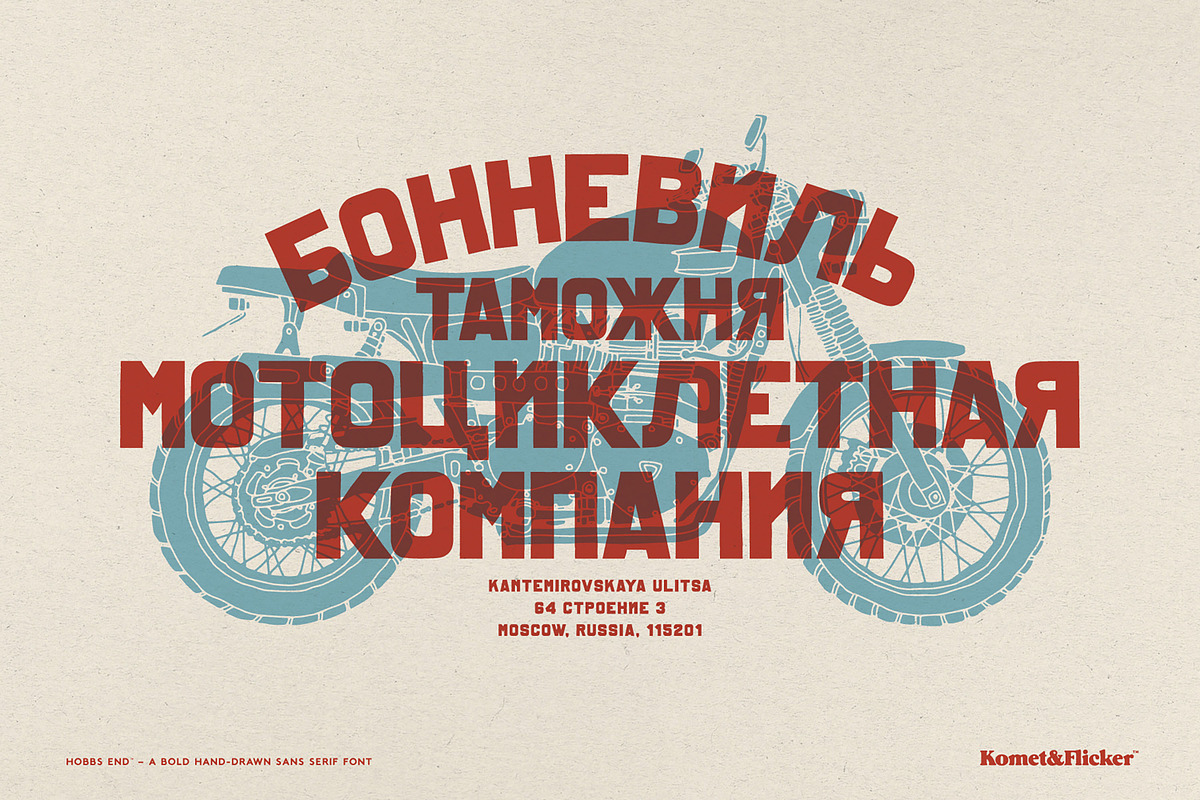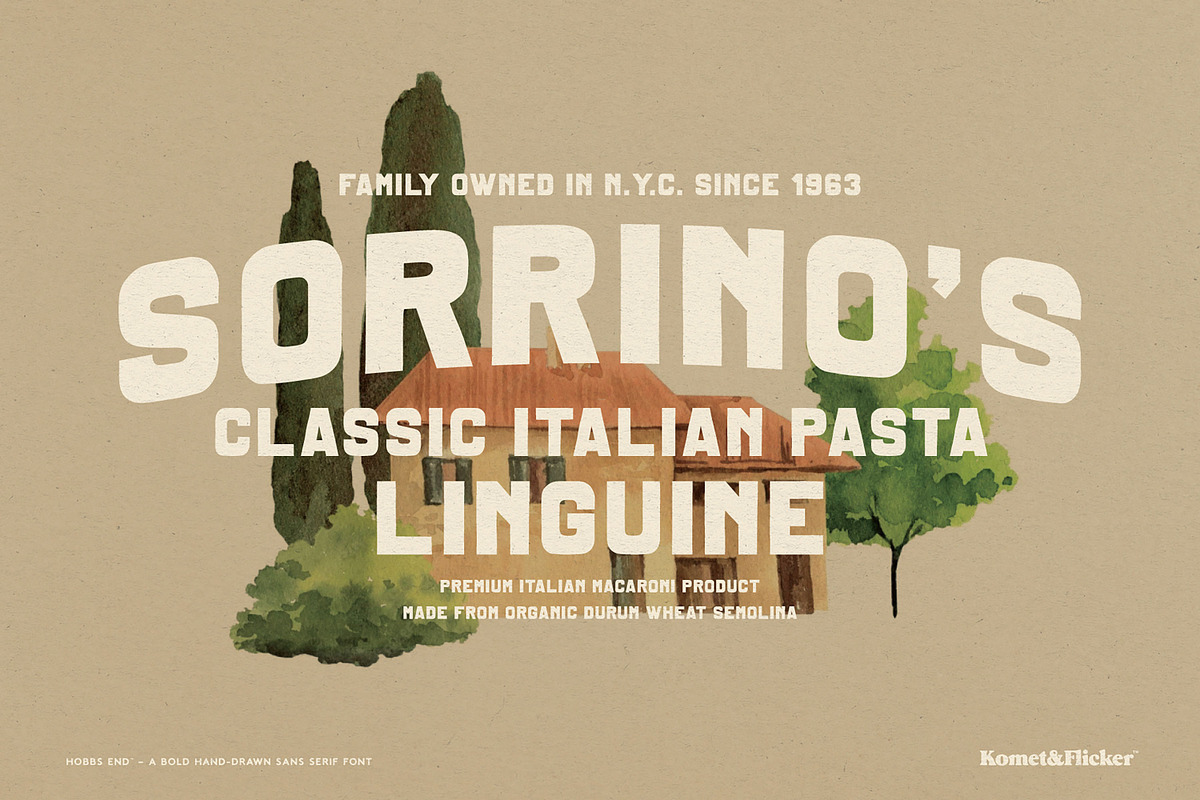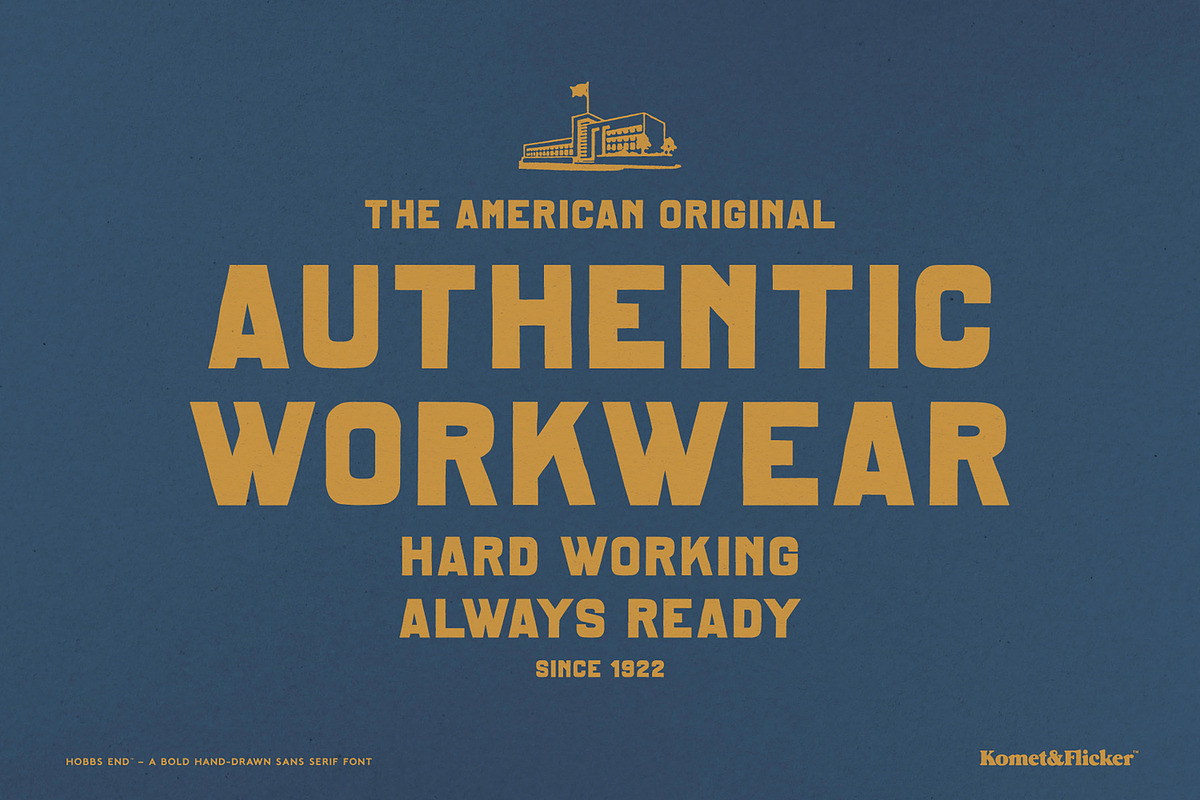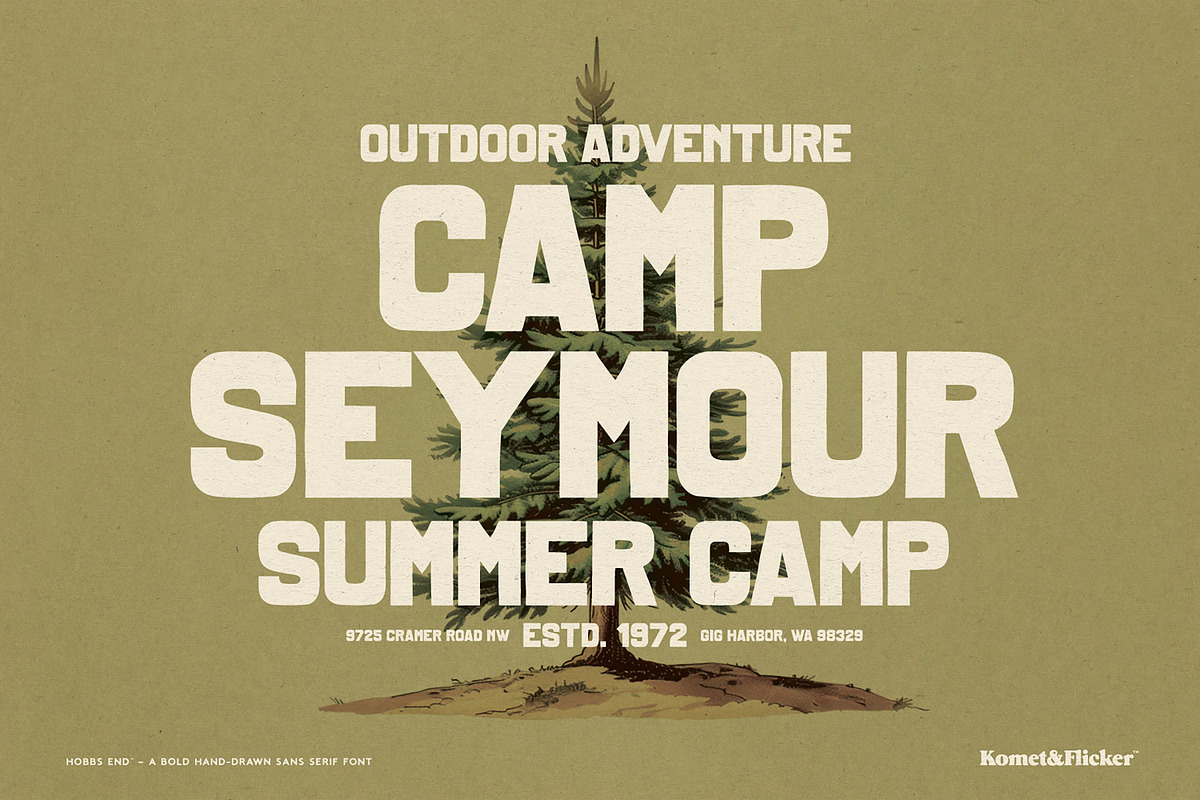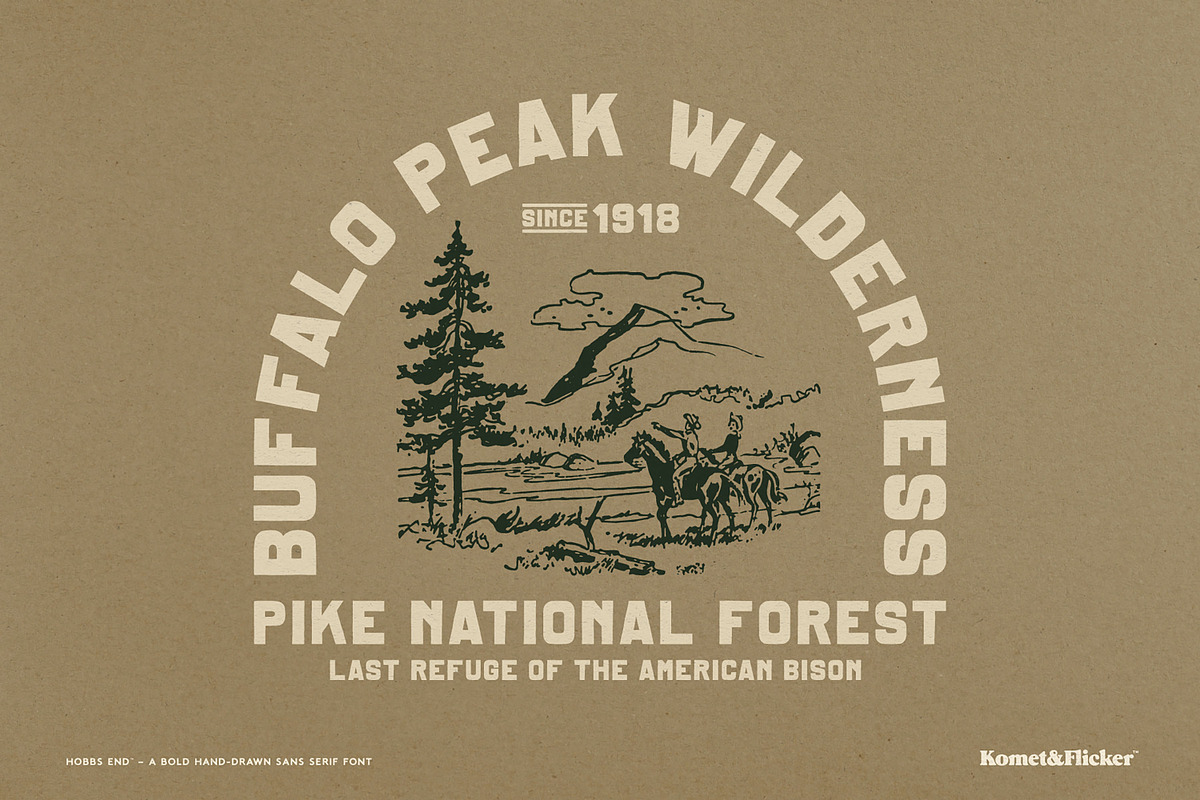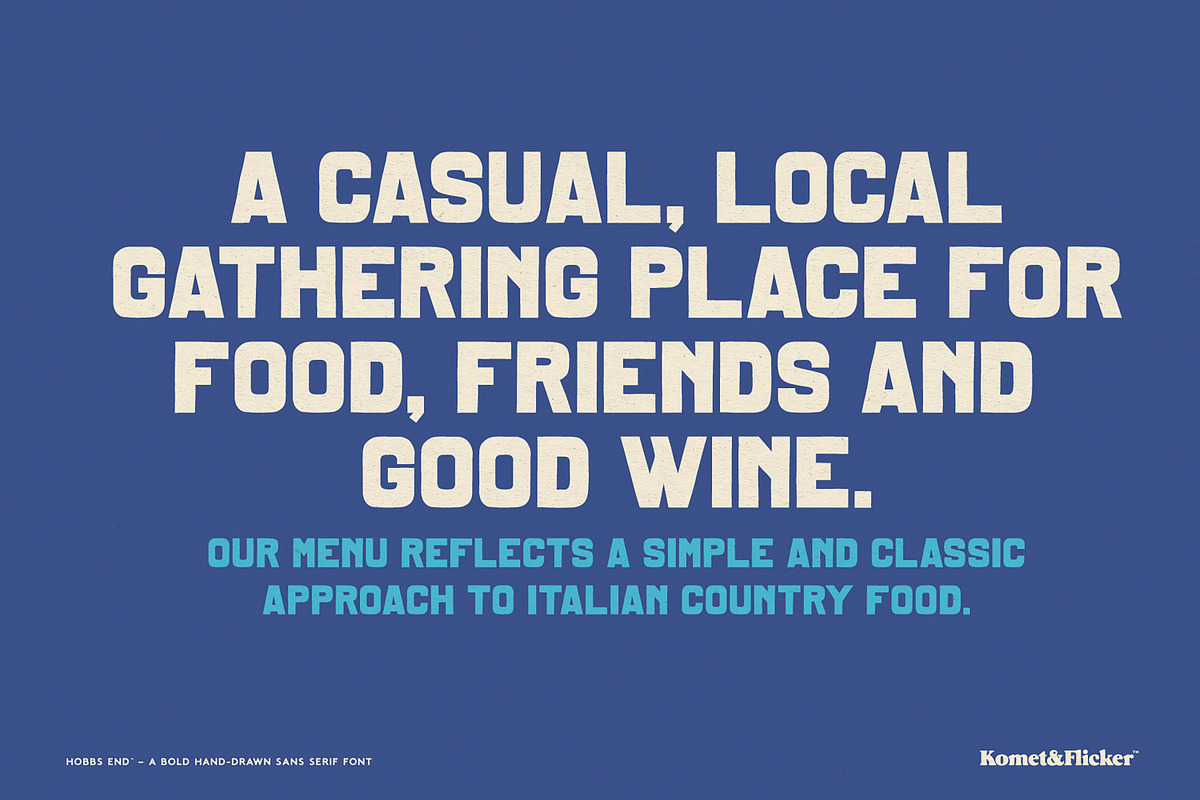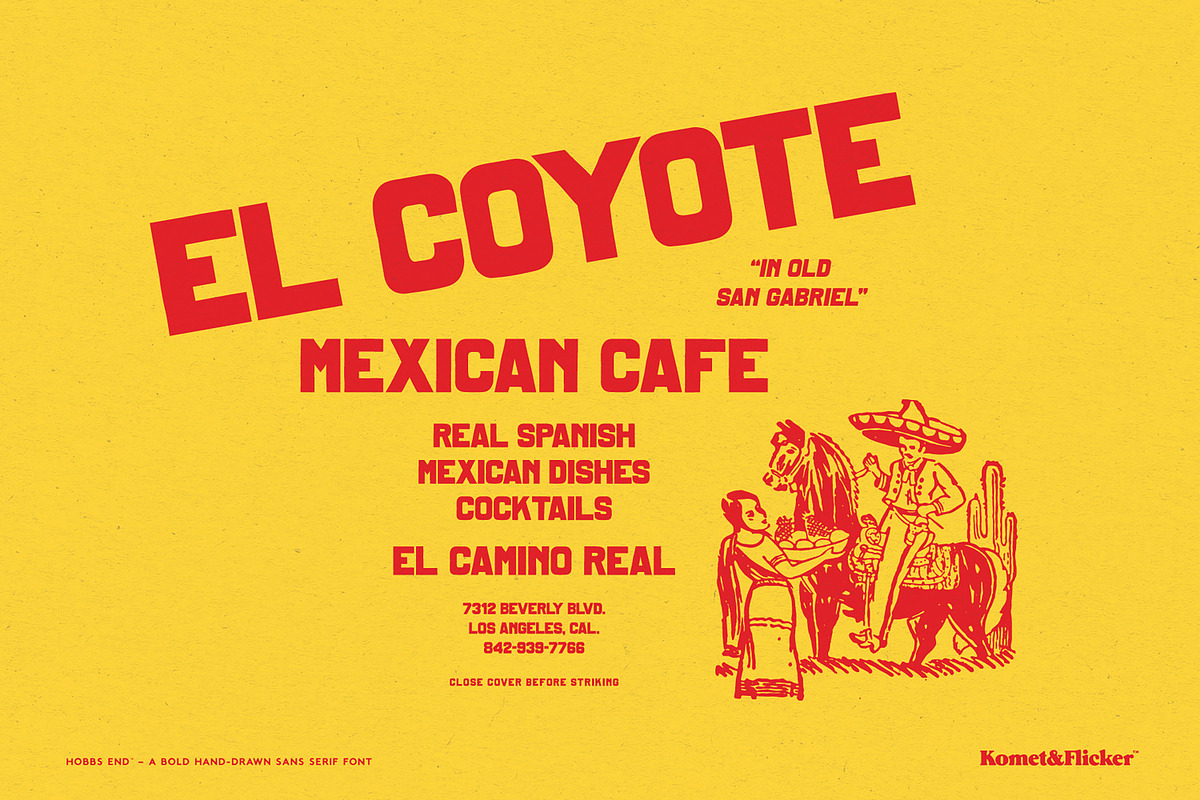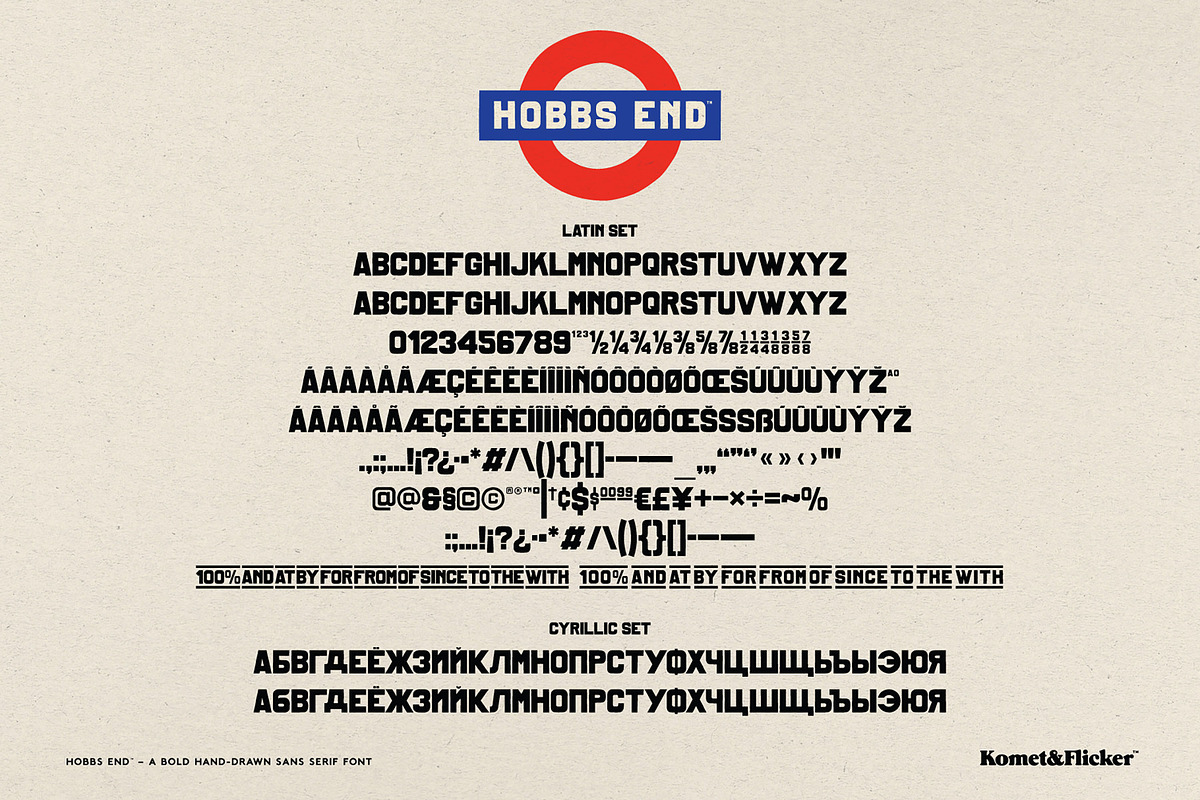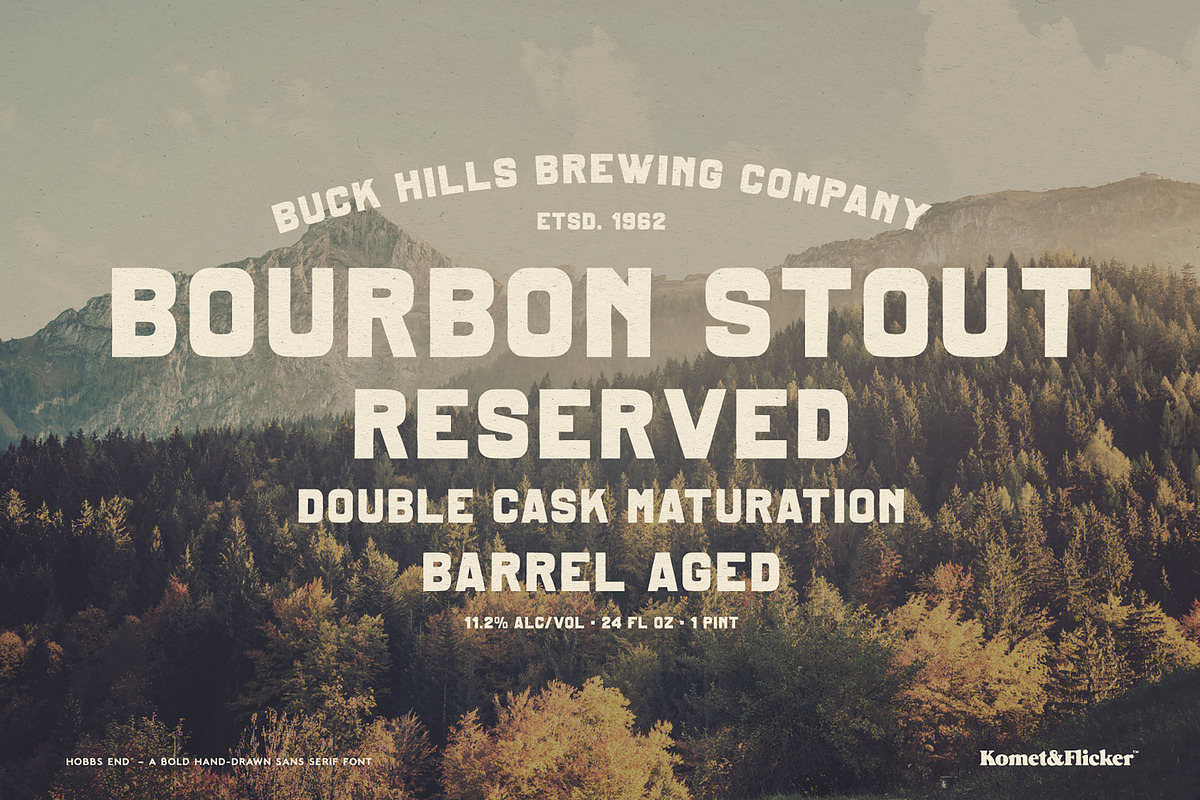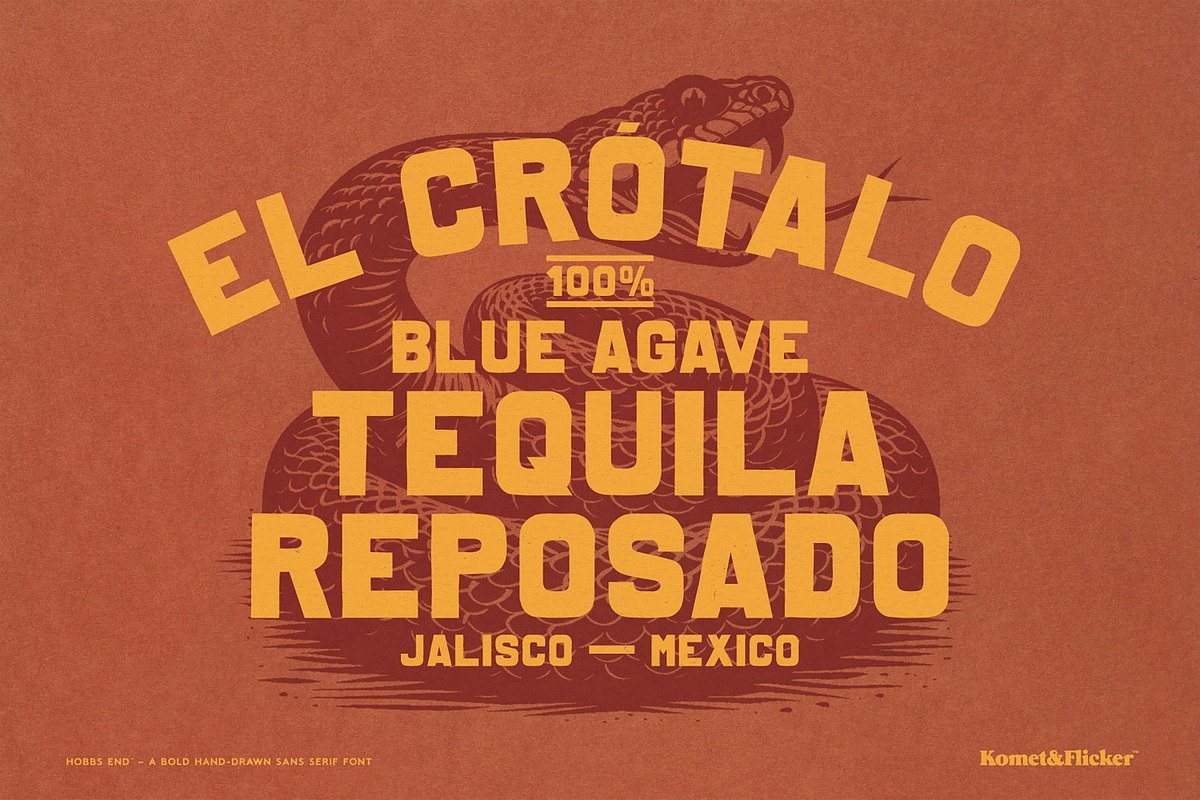
Hobbs End - A Bold Sans Serif
Hobbs End is a bold, hand-drawn all-caps font with a raw, confident personality. Built to stand out, its expressive letterforms bring an organic, handmade feel that works beautifully for posters, packaging, branding, apparel, and eye-catching headlines.
Beyond the Latin alphabet, Hobbs End includes a basic Cyrillic character set, making it a versatile choice for multilingual projects. To add even more character and flow, the font also comes with a unique bonus: 11 custom connecting words (such as: and, the, of, with – in two styles). These connectors are designed to seamlessly link words together, giving your typography a cohesive, handcrafted look without extra effort.
Strong, playful, and full of personality, Hobbs End is perfect when you want your message to feel bold, human, and unmistakably original.
THIS FONT INCLUDES
- Full A-Z uppercase basic latin characters
- Select European specific characters
- Basic Cyrillic character set
- Numbers, punctuation, and select symbols
- Two styles of pre-made fractions
- Set of 11 custom connecting word glyphs in two styles